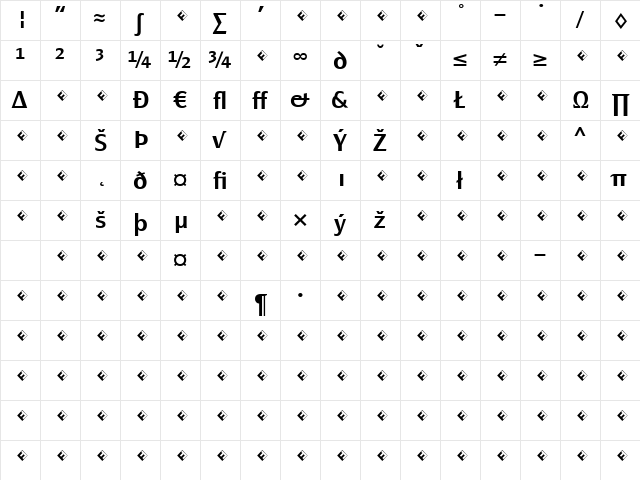
PageSans-DemiBoldExpert Regular
| Designer | Albert Boton |
Design Context for PageSans-DemiBoldExpert Typeface
PageSans-DemiBoldExpert offers clean, dependable letterforms without strong stylistic allegiance, making it a practical choice for designers who need flexibility. The heavy weight commands attention and anchors typographic hierarchies.